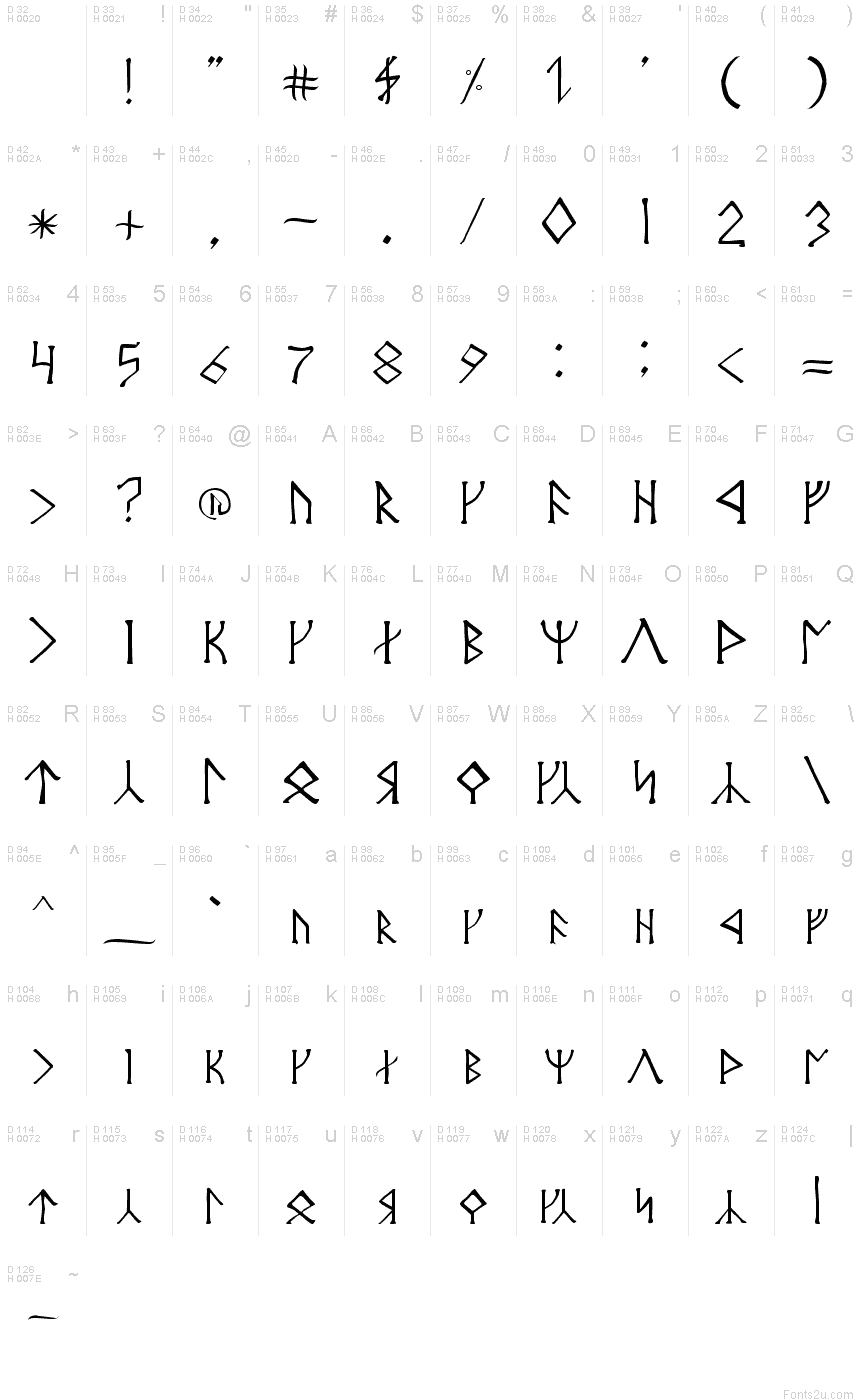
Angerthas Moria
Angerthas Moria font by Morten Bek is a free runes dingbats font with the stark, carved feel of ancient symbols cut into dark stone. Its tall, wiry forms mix spear-like points, forked branches, and steady vertical strokes, creating a secretive, mythic texture that feels closer to an inscription on a cavern wall than everyday lettering.
Using Angerthas Moria works beautifully for fantasy book covers, tabletop RPG handouts, game menus, treasure maps, album art, event posters, and themed merch. This free font reads best when it’s given space and used large; pair it with a quiet serif or clean sans so the rune shapes stay crisp and mysterious.
Created by Morten Bek anno 1997